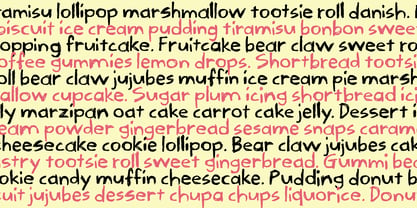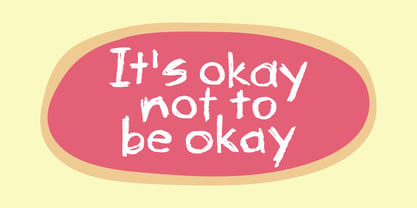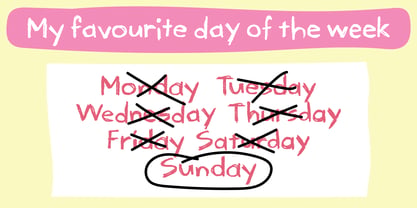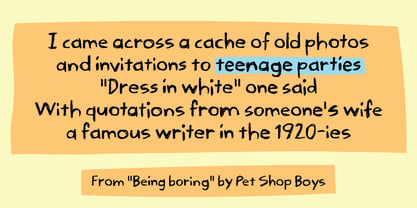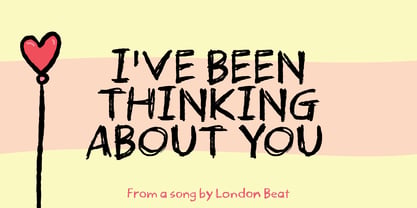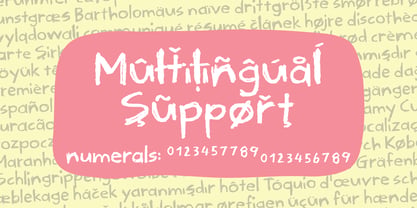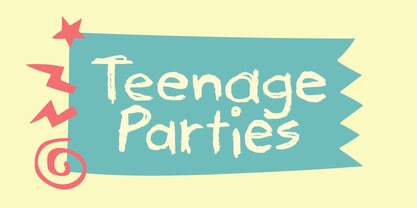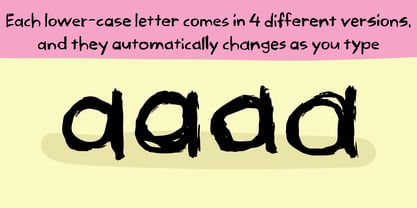
Teenage Parties
The Teenage Parties Font Family was designed by Jakob Fischer and published by PizzaDude.dk. Teenage Parties contains 2 styles and family package options. More about this family
“Teenage Parties” has a playful, handmade feel that instantly comes across as warm, casual, and a little bit quirky. The letters look like they’ve been drawn with a slightly wobbly marker, giving them an organic, imperfect charm that feels very human rather than mechanical. The strokes are uneven in thickness, with soft curves and rounded edges that make the text feel friendly and approachable. It leans toward a comic or doodle-like style, but without being overly exaggerated—there’s still a nice readability to it. Overall, it gives off a relaxed, storytelling vibe, like notes written in a scrapbook or captions in a personal journal, full of personality and subtle whimsy.